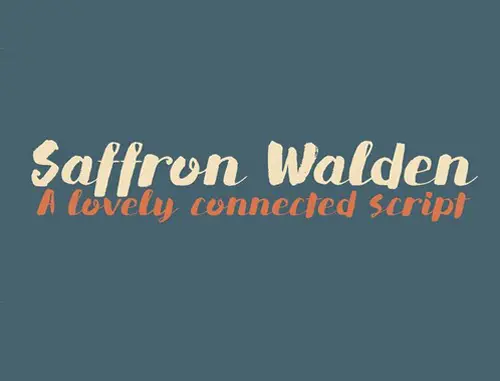
Dk Saffron Walden Font
The Dk Saffron Walden Font is a beautifully crafted typeface that combines elegance with a touch of whimsy. This font features a unique blend of rounded and sharp edges, making it suitable for a variety of design projects.
• Weights: Light, Regular, Bold
• Ideal for branding projects, logos, and promotional materials.
• Perfect for both web and print applications.
• Great for UI design, ensuring readability and style.